One of the easiest ways to create Halloween-themed texts and banners is through Microsoft word. The software already houses some cool fonts that you can use for plenty of different occasions, so using Microsoft word for your last-minute Halloween decor might save you!
In this post, we created a list of our favorite Halloween fonts for word that are already preinstalled in the software so you won’t really need to do much but create your texts. We also listed a few of our favorite Halloween fonts for free that are easily downloadable and you can install to your computer and use on Microsoft word.
Halloween Fonts for Word
Algerian Halloween Font for Word
The Algerian font is an all-capital, serif font with some cool accents. Though it’s not entirely a spooky or creepy font, you can still use this font as a Halloween font! You can still totally use this and incorporate this font into your Halloween decor, especially for signage or banners, because the font is big in size, making it easy to see and read. The best part, it is already in your Microsoft word, so this makes it completely hassle-free to use!
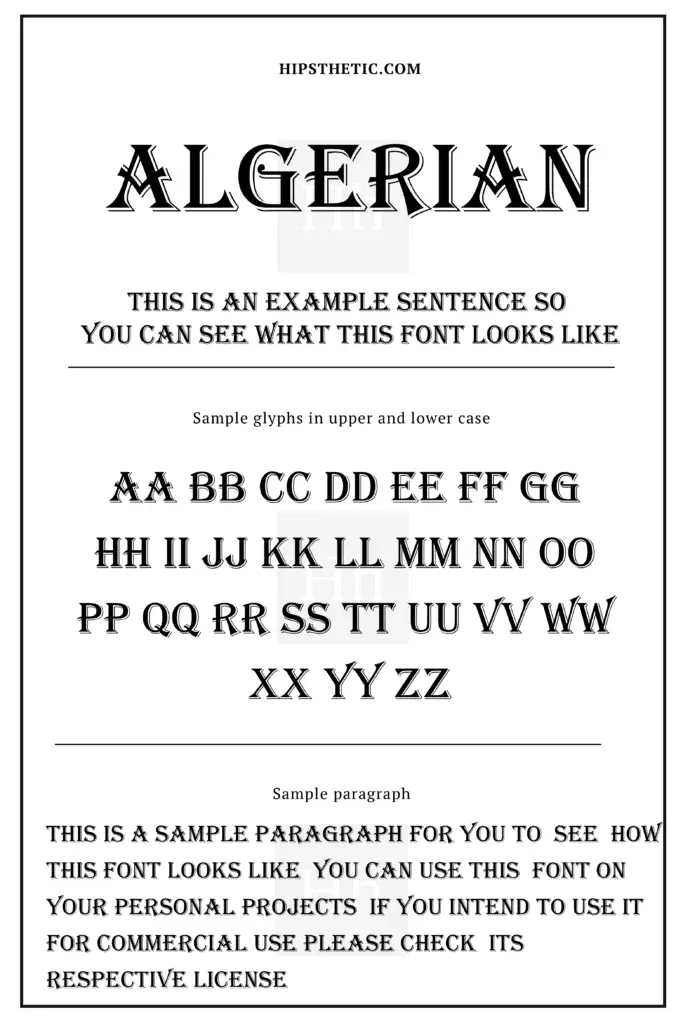
Blackadder ITC Halloween Fonts for Word
The Blackadder font is simply a classic! We think it’s absolutely perfect to use on Halloween-themed designs as the font simply gives that dark old-style writing that comes with a mysterious vibe. This can surely work on one of your spooky Halloween designs!
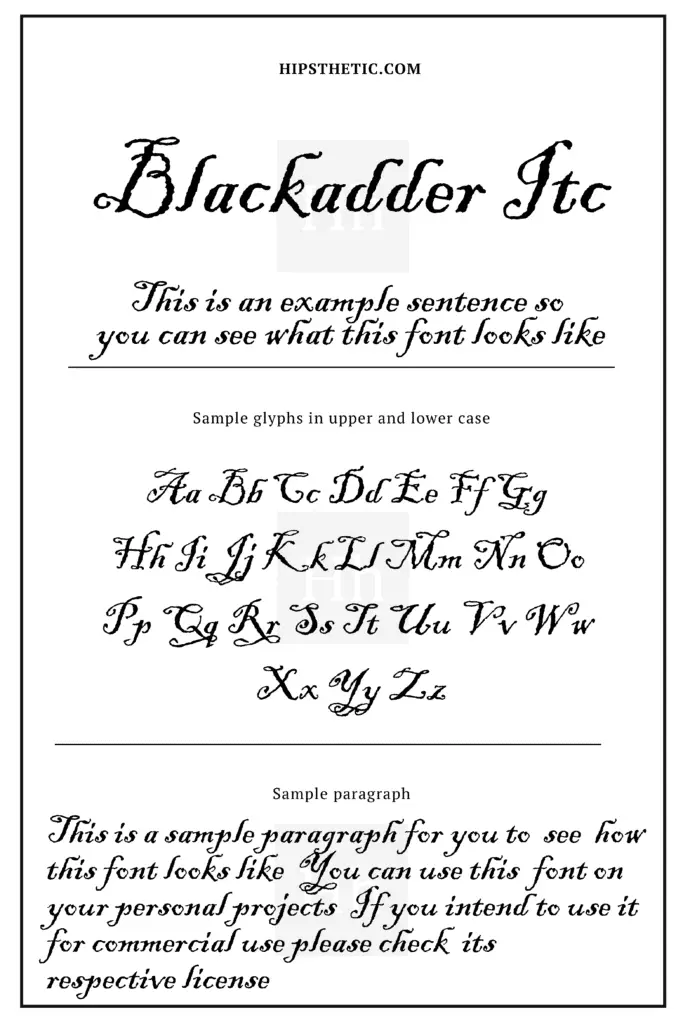
Papyrus Font
The Papyrus font is another great font to be used on themed designs. Though this font isn’t really made for Halloween, we still think it can be used for the occasion. The Papyrus font features a nice rustic texture that can be a good added touch to your Halloween texts and banners. Try it out yourself!
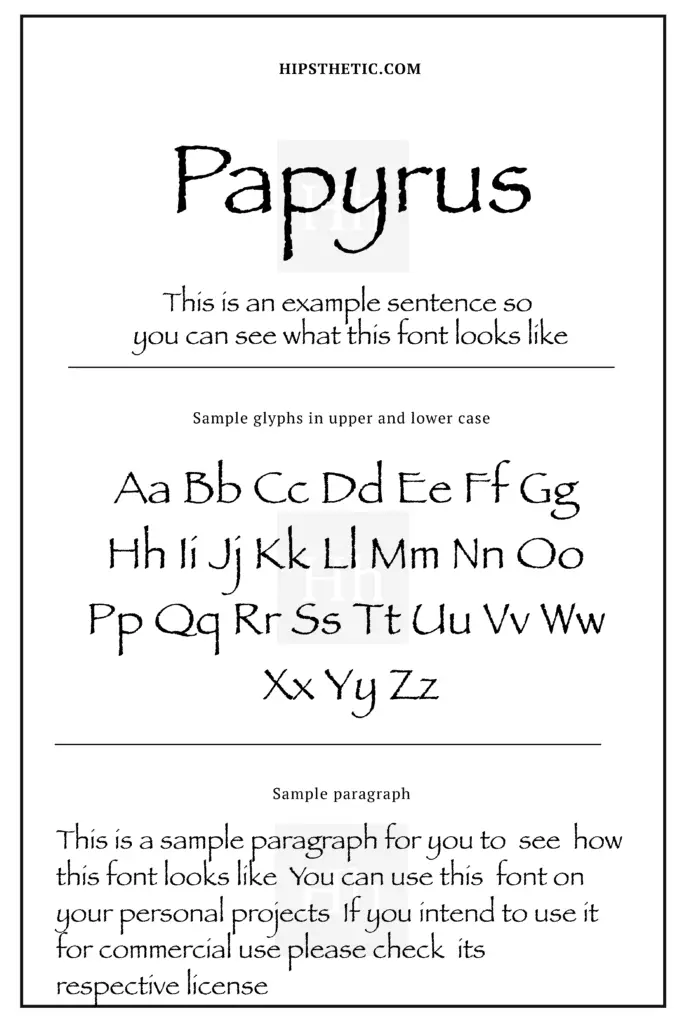
Halloween Fonts for Word Free Downloads
We wanted to include a few fonts that we really enjoy using for Halloween, that can be easily downloaded and used on Microsoft word. All of these fonts are free to use, and can be easily accessible with just a click!
Nightmare Halloween Fonts for Word
The nightmare font showcases exactly what a nightmare can give you… gooey icky dripping goo or blood! That’s why this font is really perfect for your Halloween decors, banners, or designs. It will surely give you the creeps! Download this font here.
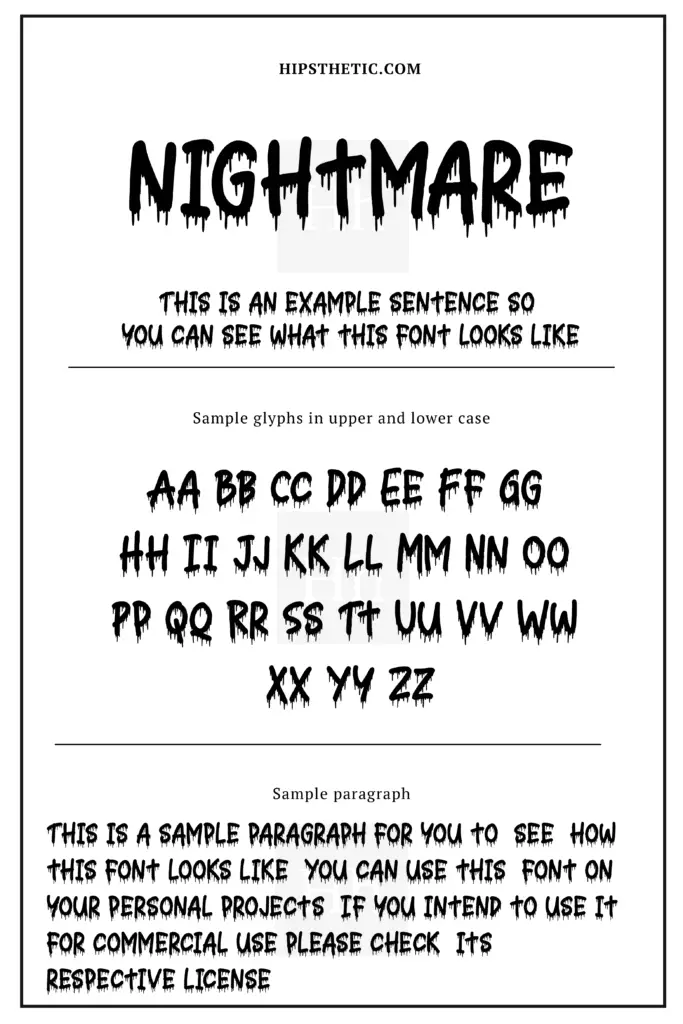
Halloween Spider Halloween Fonts for Word
This is one of our favorite Halloween themed fonts! With its handwritten marker-type font with a touch of creepy crawlies! We absolutely love the font’s way to incorporate cute web and spider illustrations into its characters. This really brings out the festive Halloween spirit! Download and try out this font here.
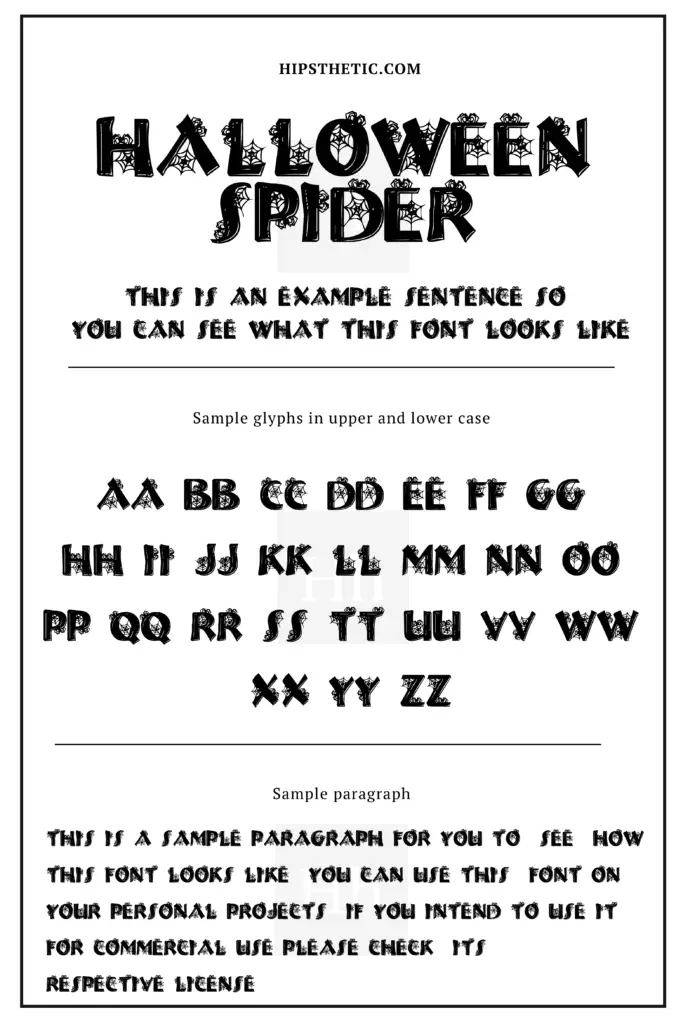
Creepsville Halloween Fonts for Word
Here’s another font that’s just perfect for Halloween! Creepsville mixes both gooey and creepy in one, with its characters having a sharp dripping accent creating the ultimate Halloween experience. What are you waiting for? Try out this font here!
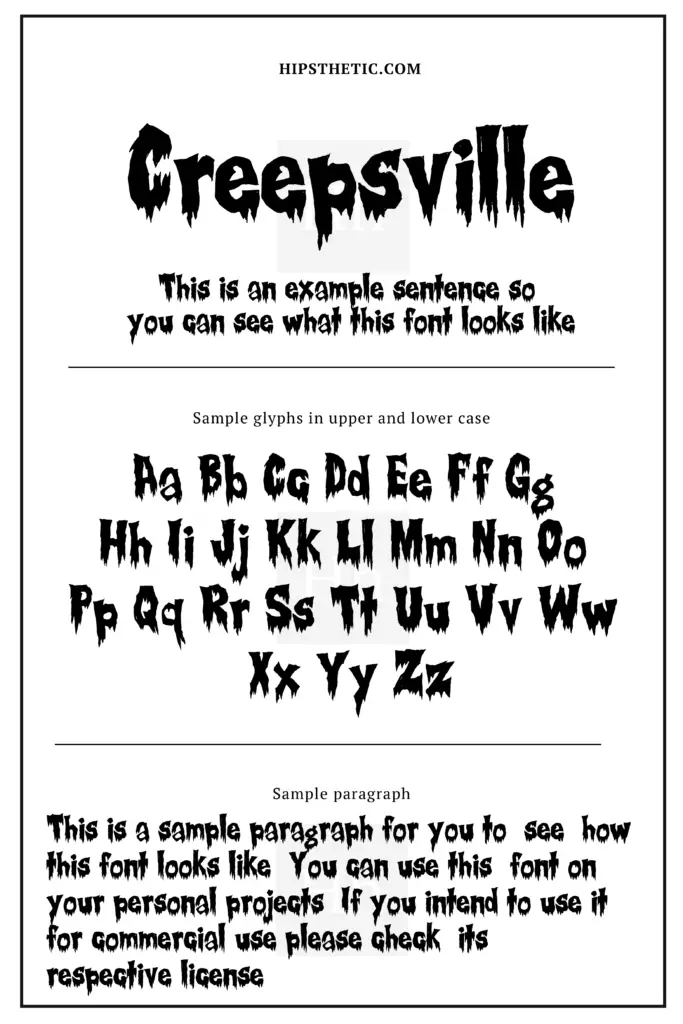
Wild Wood Halloween Fonts for Word
We love how this font has so much creepy potential! The wild wood font features block serif characters with interesting accents. The font’s accents are tiny branches that look like are coming out of each character and letter from the font. This font may not be particularly designed for Halloween use, but we just absolutely love how it can be creepy or fit in the Halloween theme. What do you think? Well try out this font, you can download it here.
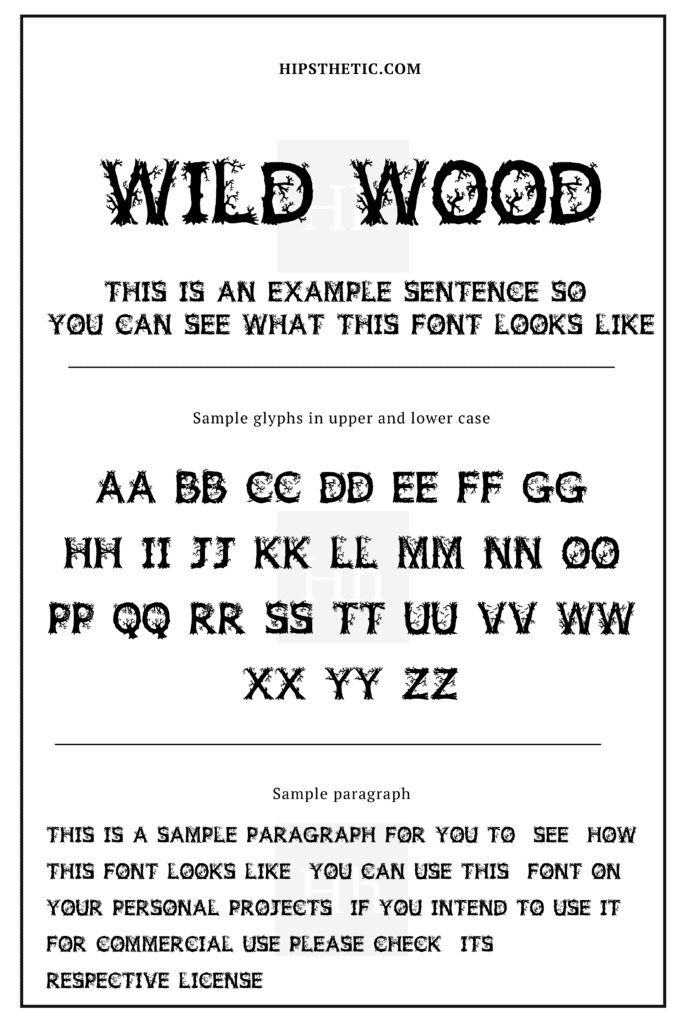
Groovy Ghosties Halloween Fonts for Word
Here’s something different to cap our list. Who knew that Ghosts could be groovy!? The Groovy Ghosties font perfectly captures the fun Halloween vibe with a not so spooky but rather cute font full of ghosts! This font is surely kid-friendly and treat-friendly. Try it out here!